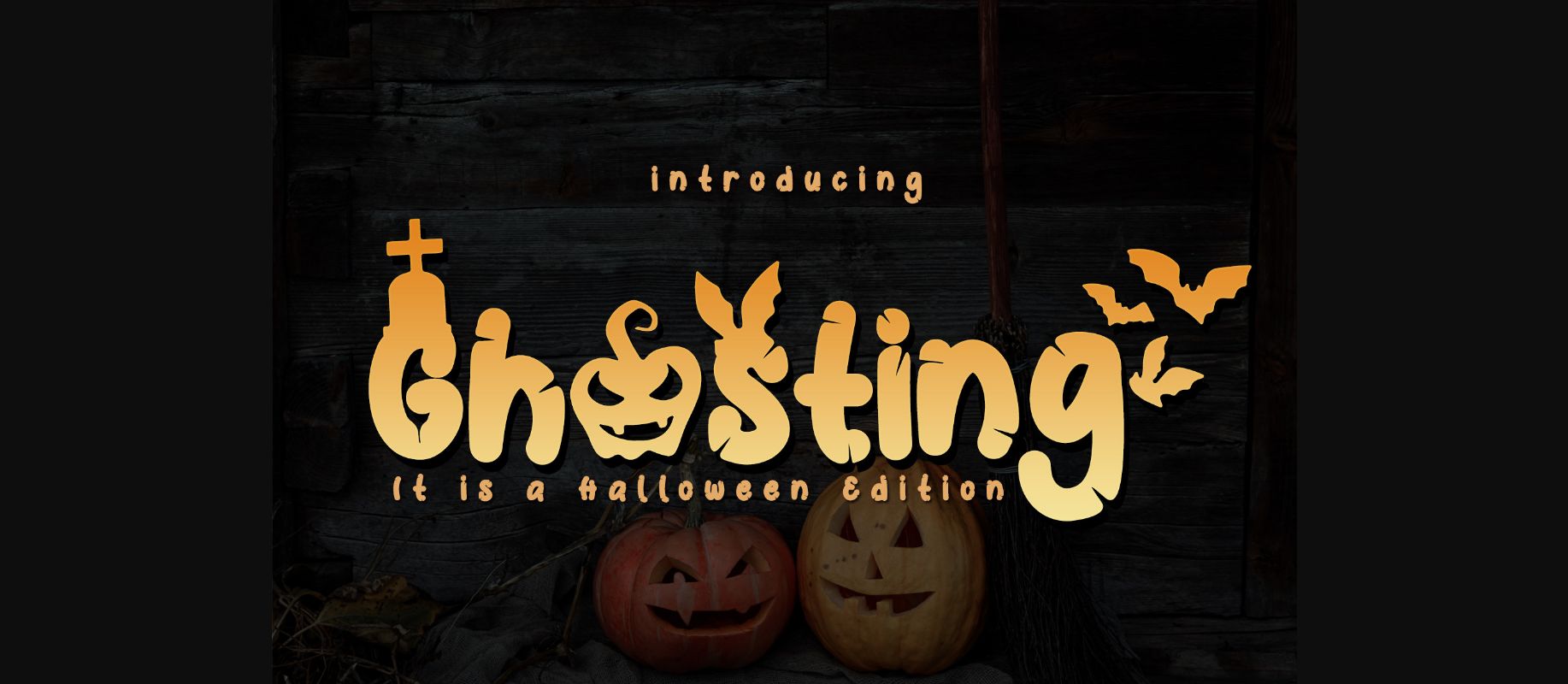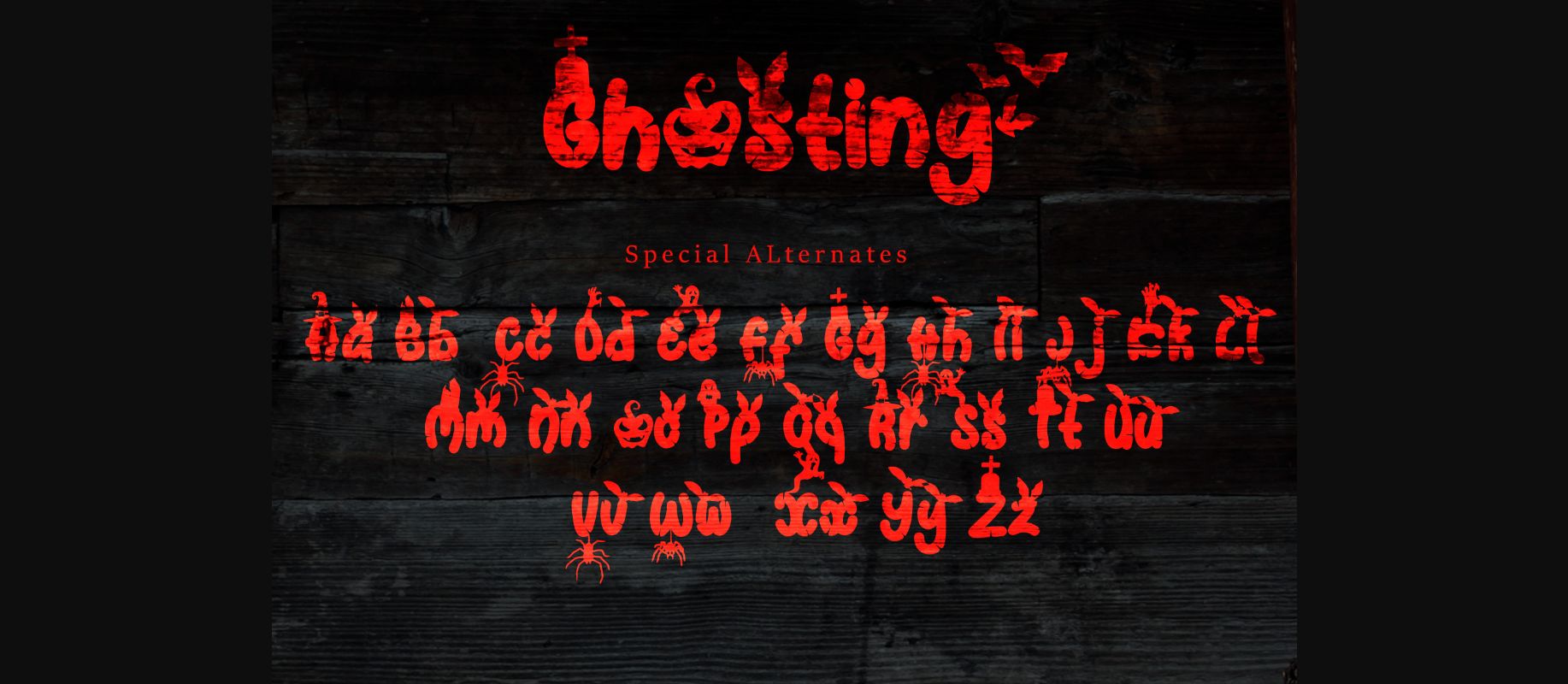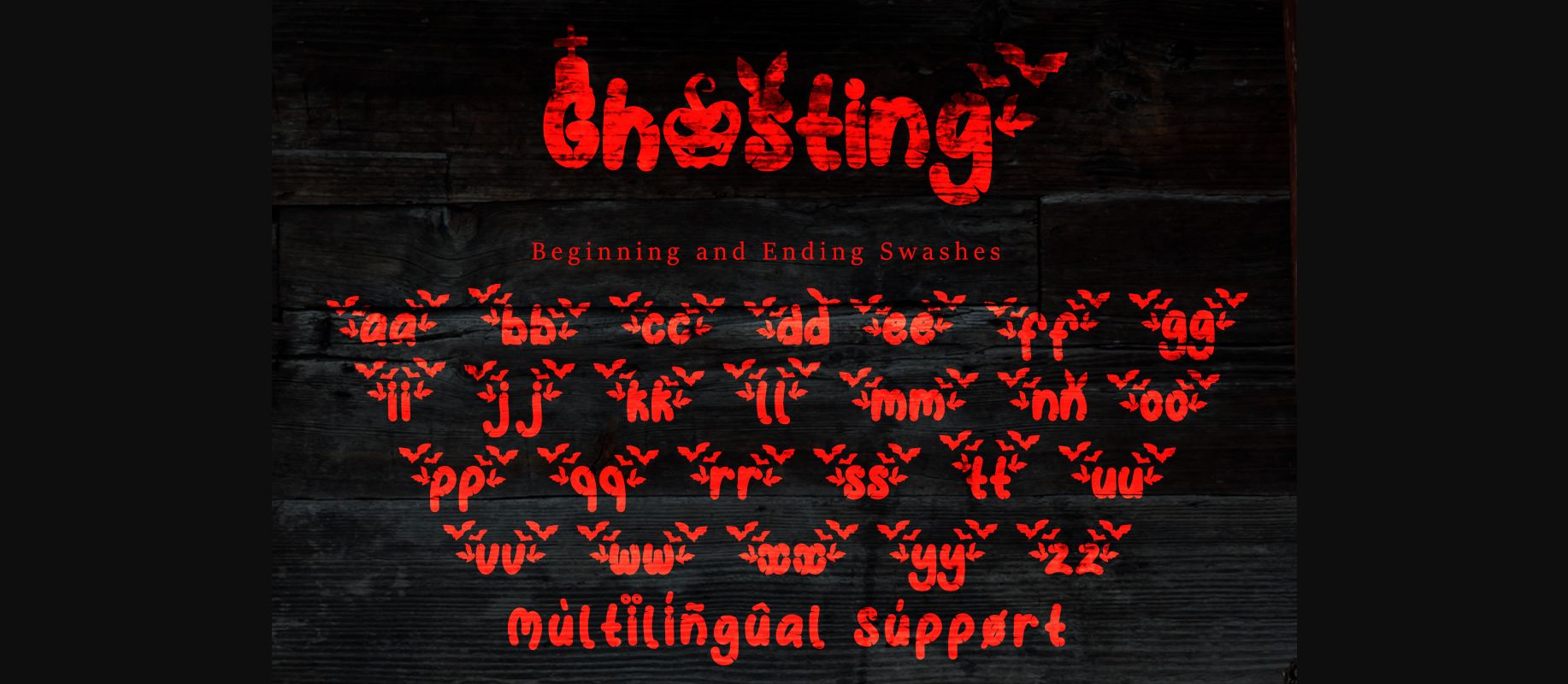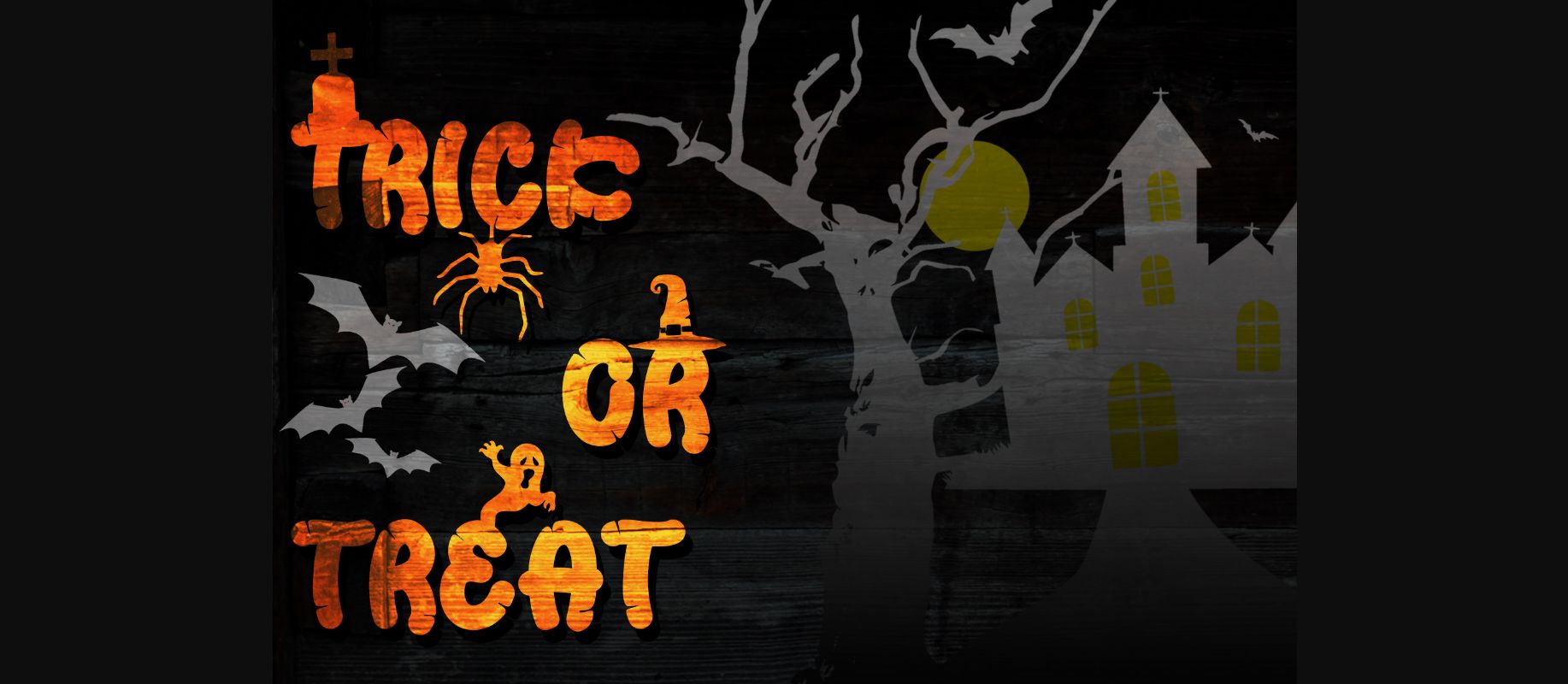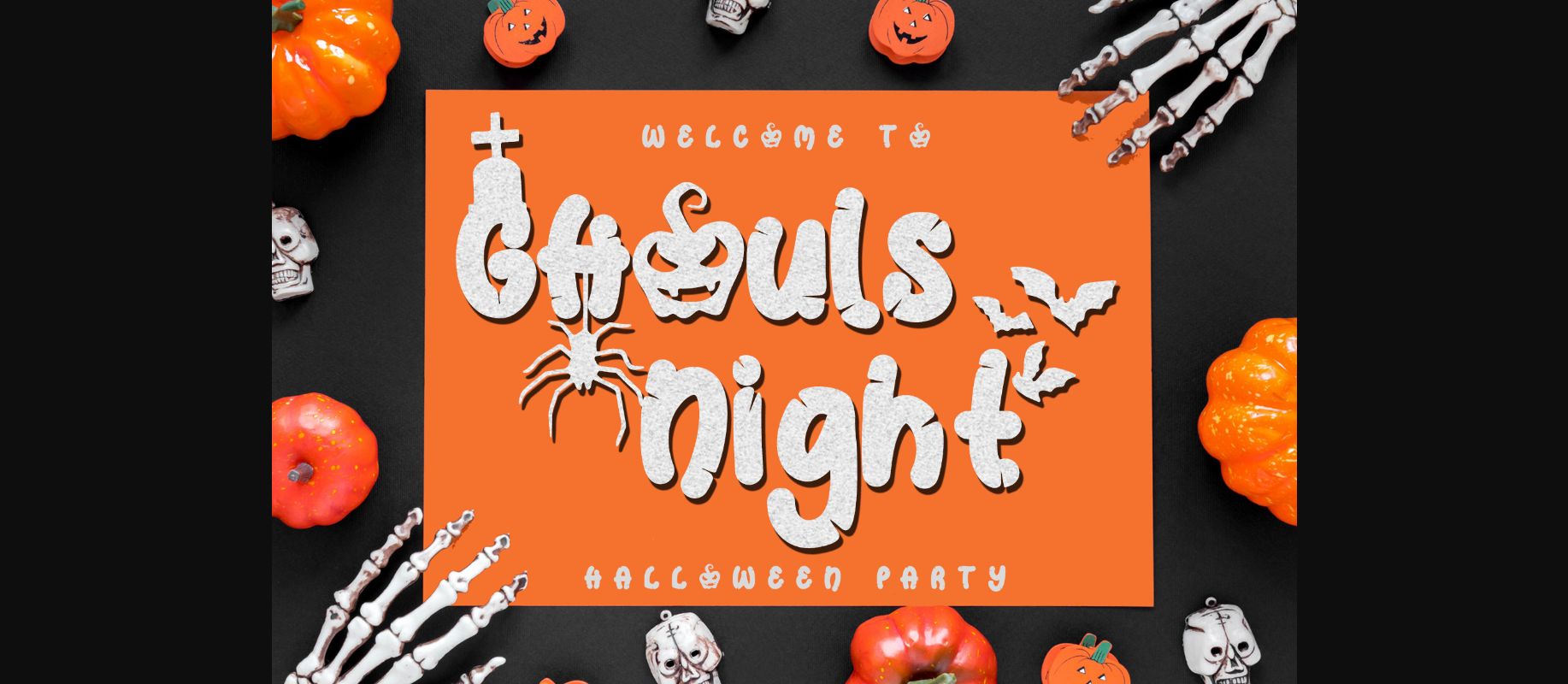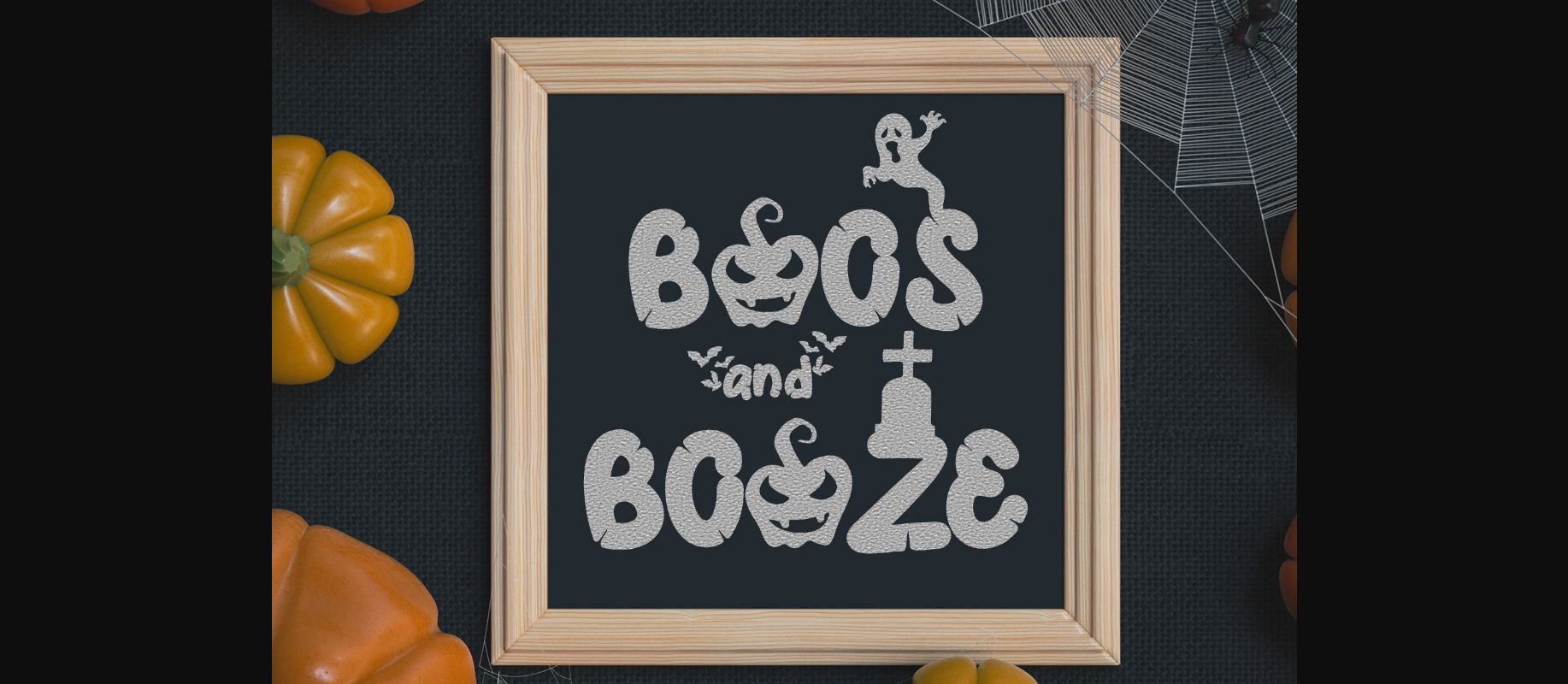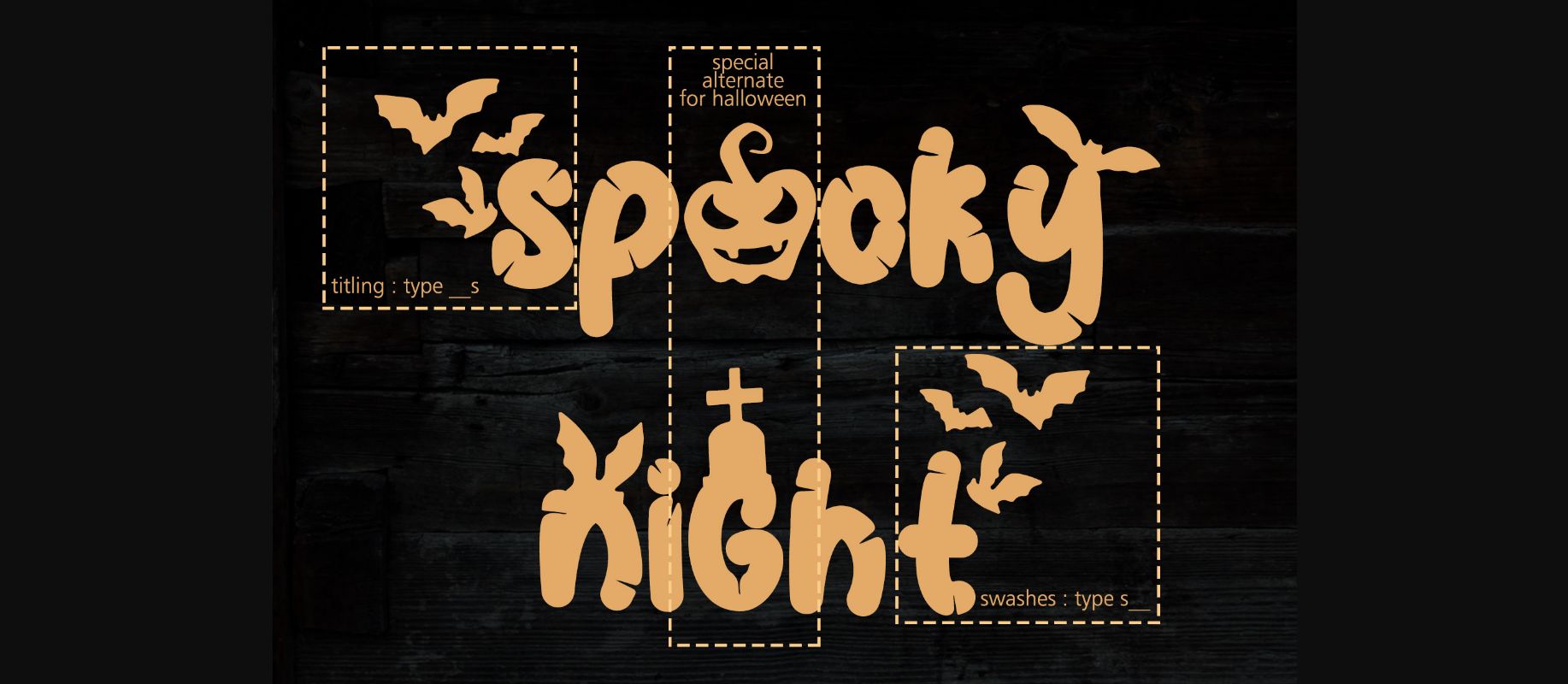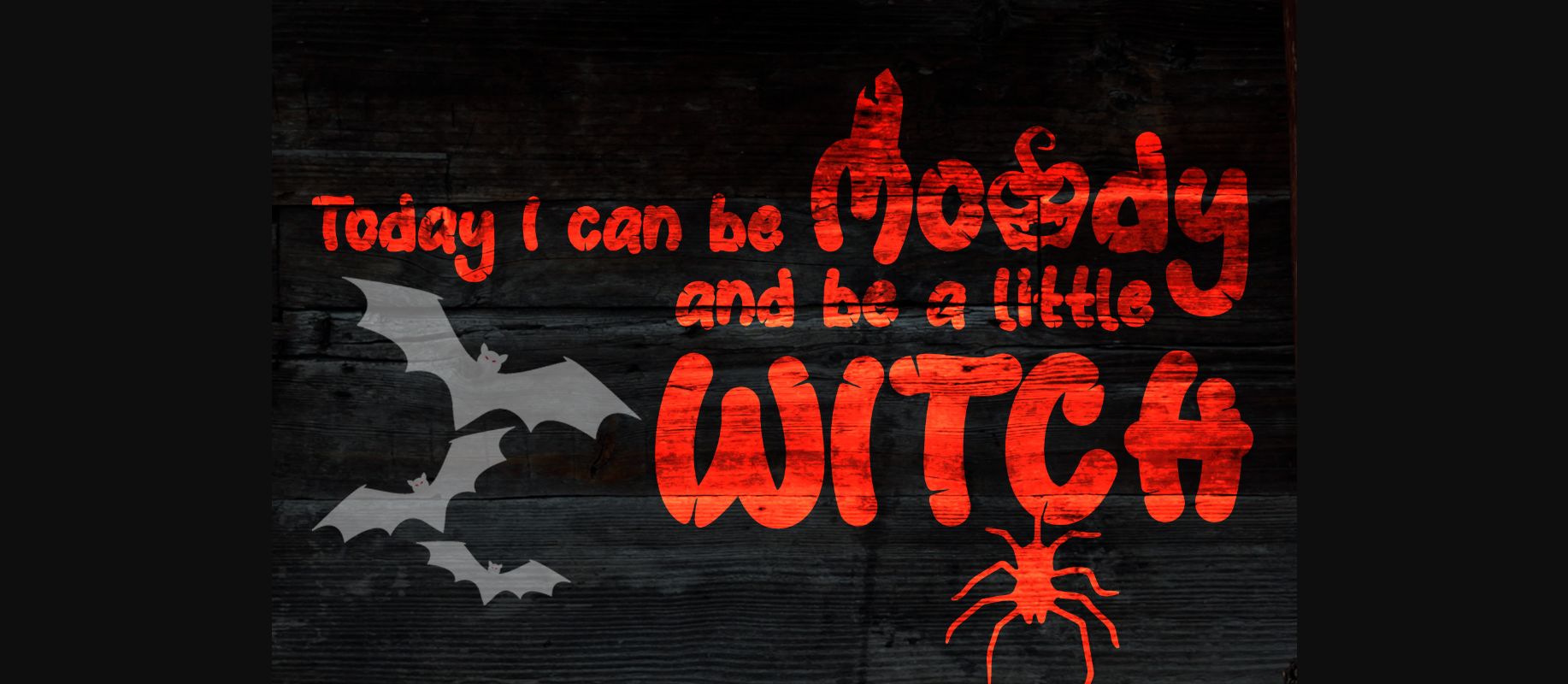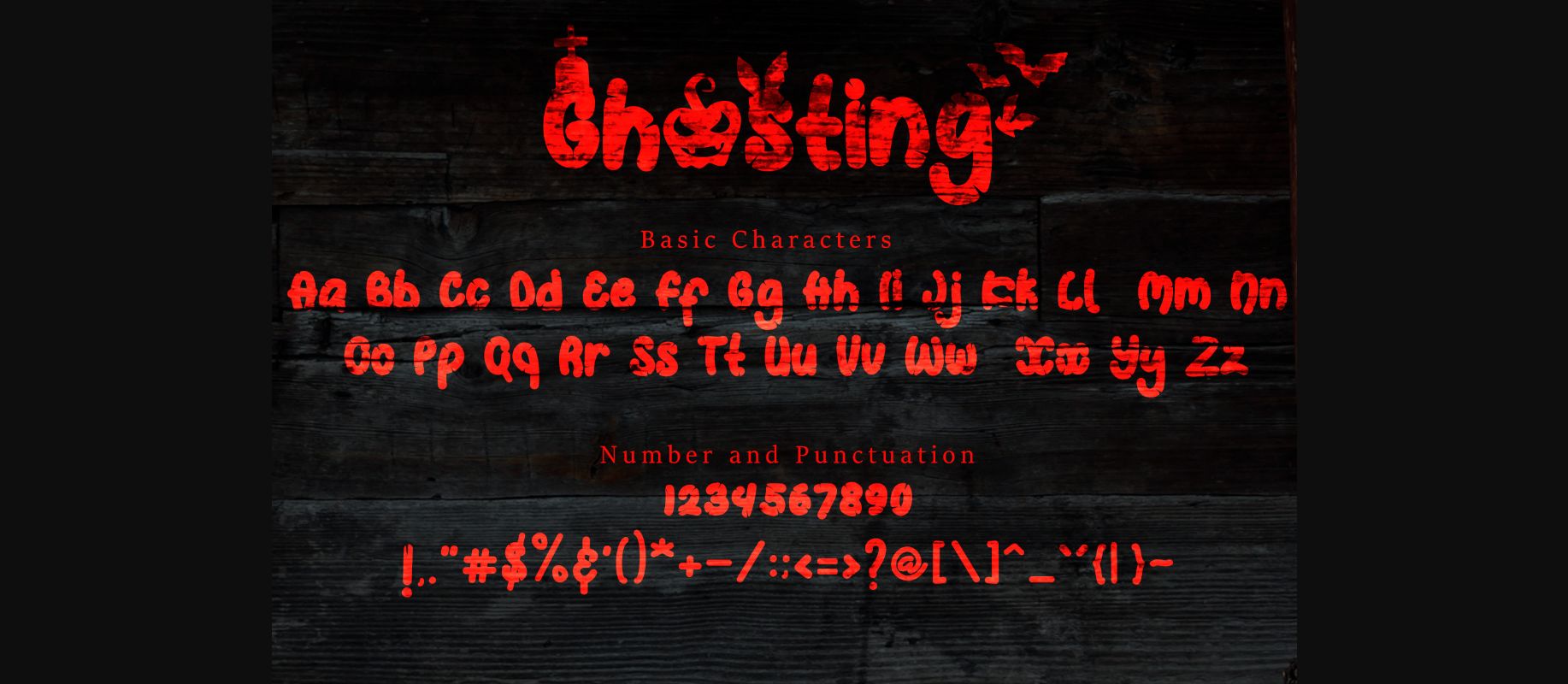
Ghosting Font
About Ghosting Font
Ghosting is an incredibly cool and spooky decorative font. Whether you use it for cartoon-related designs, children games, or just any creation that requires a scary touch, this font will be an amazing choice. Ghosting is PUA encoded which means you can access all of the glyphs and swashes with ease!